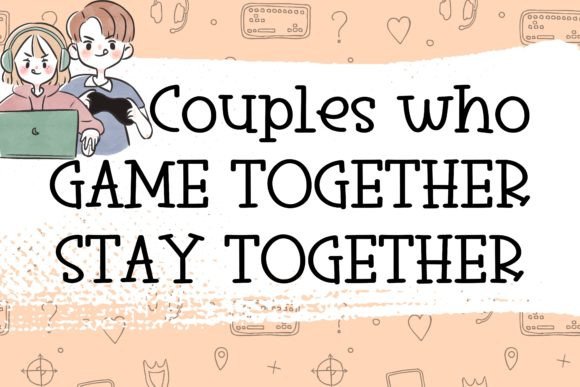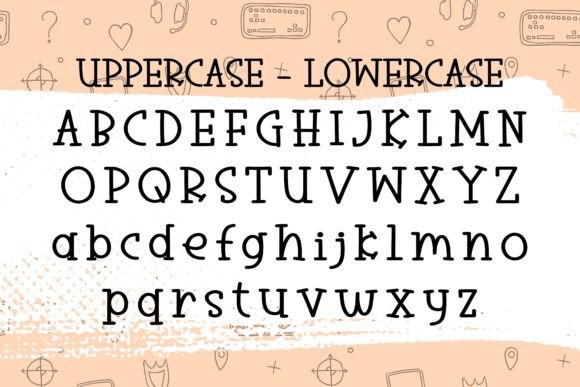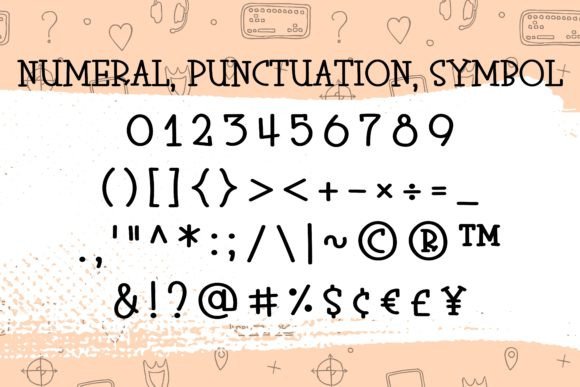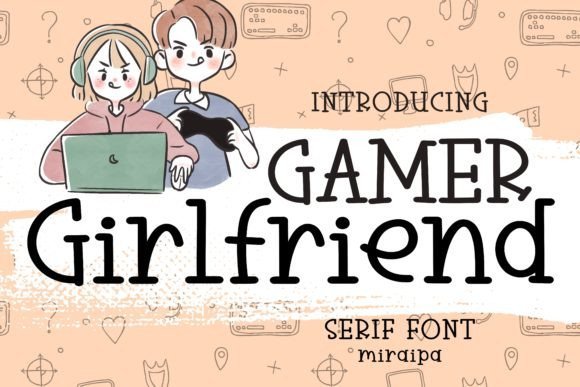
Introduction to Gamer Girlfriend Font
Gamer Girlfriend is designed in a cute and friendly handwritten serif font style.
It would be awesome for your projects or diary planner Try it for your perfect projects such as Easter, back to school, weddings, party decorations, greeting cards, social media posts, or anything that needs a friendly touch.